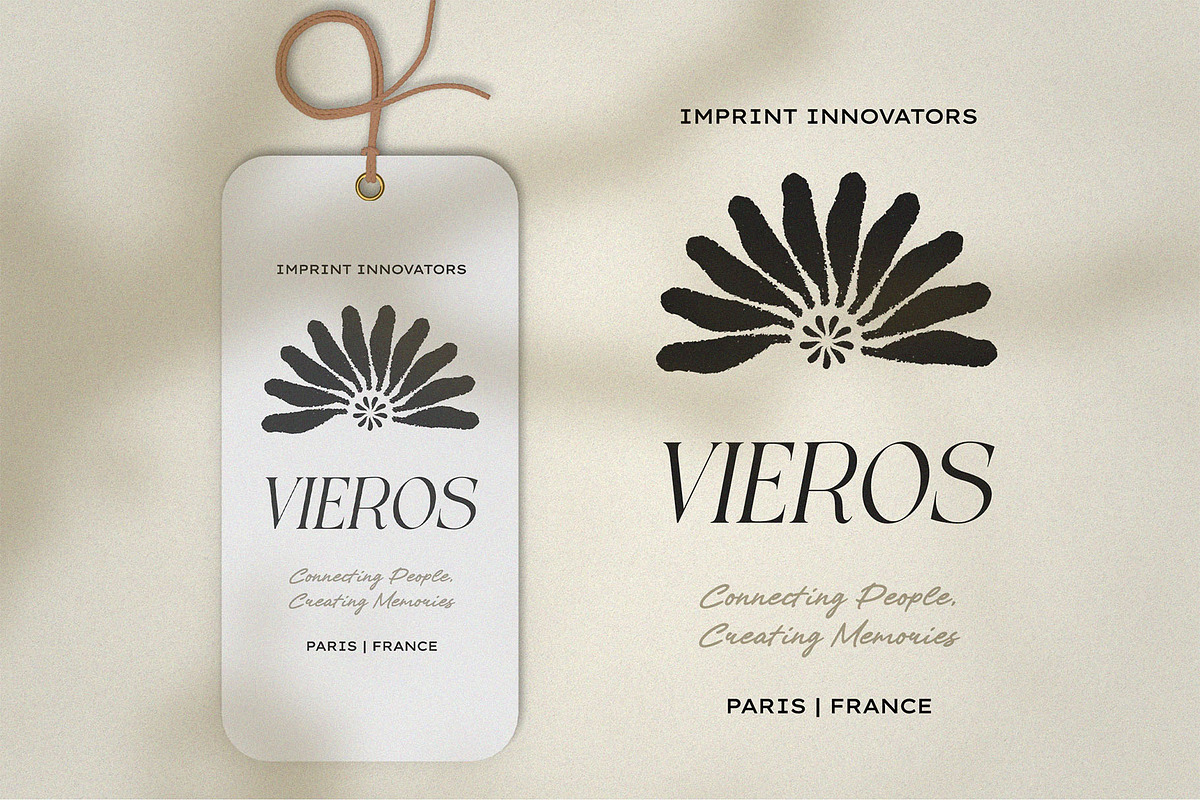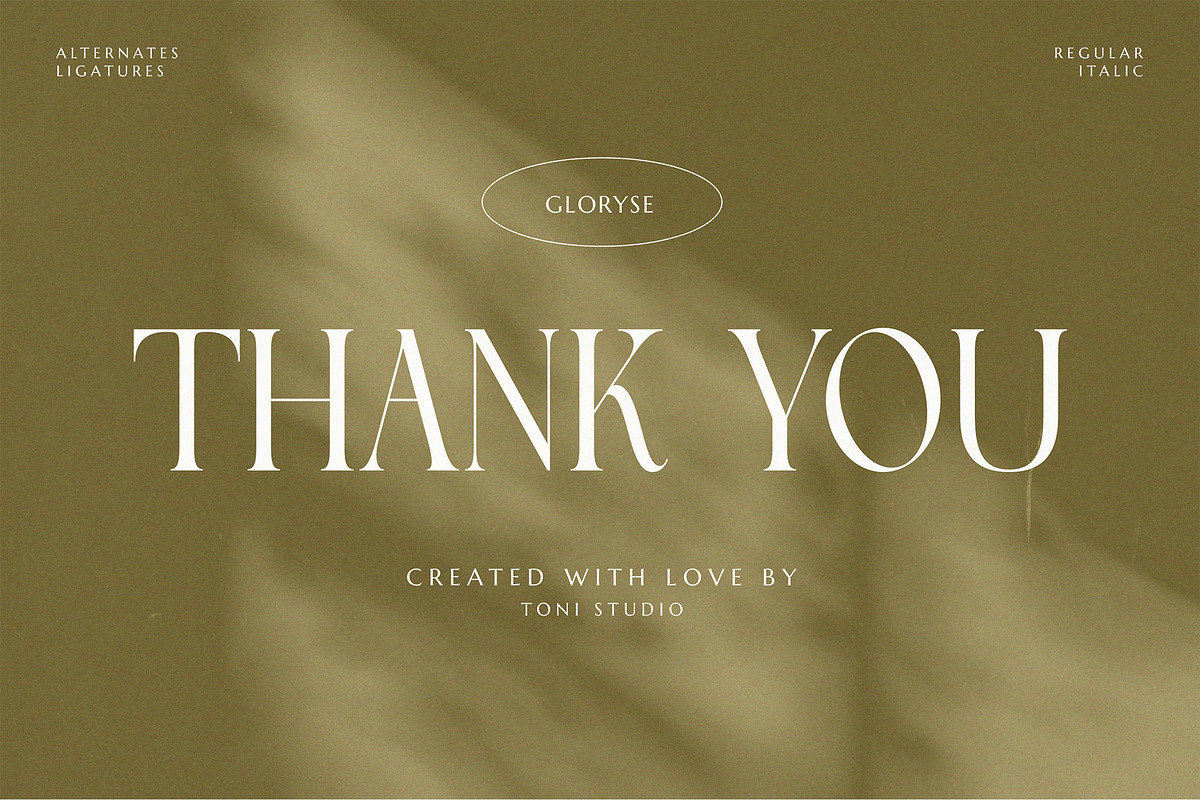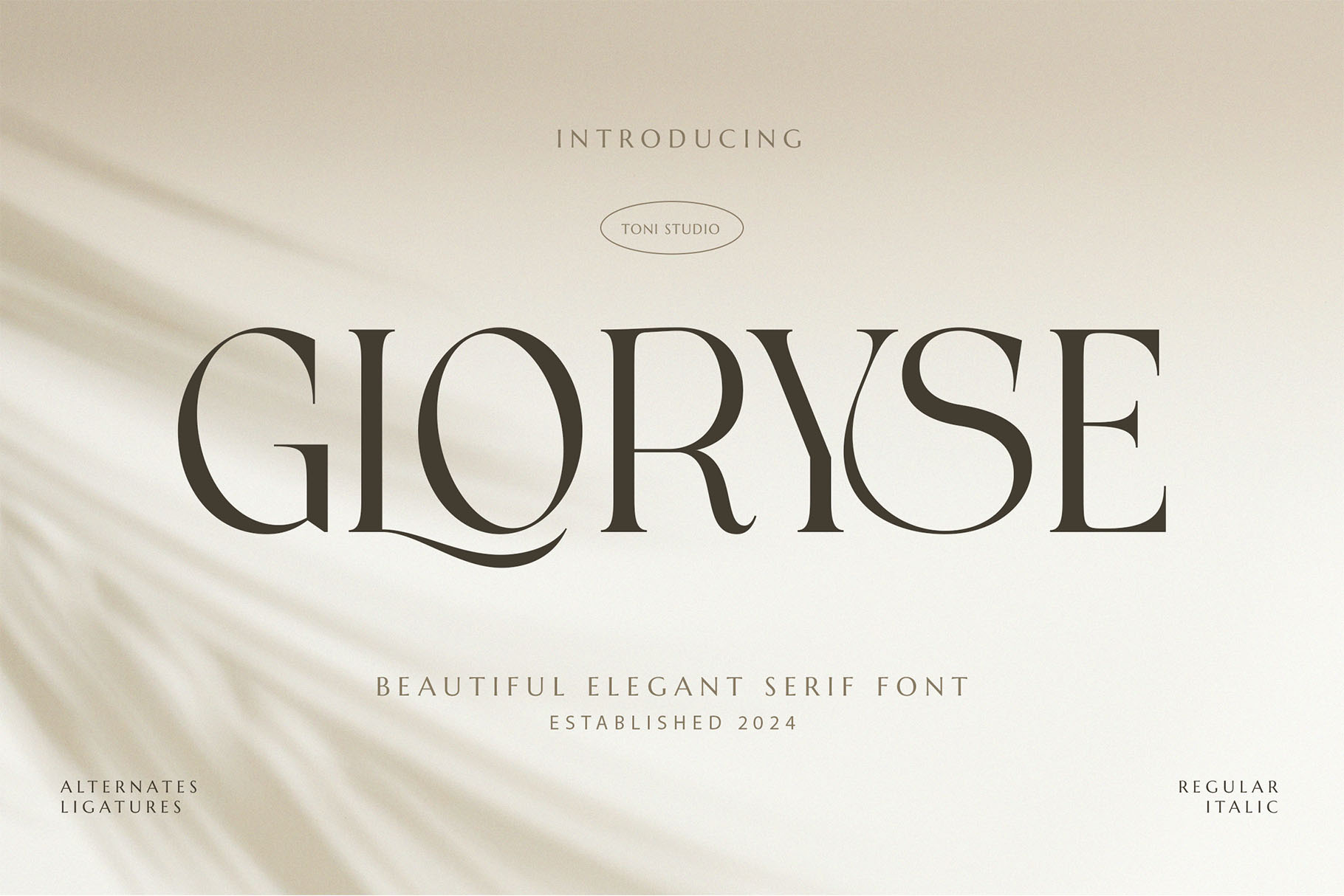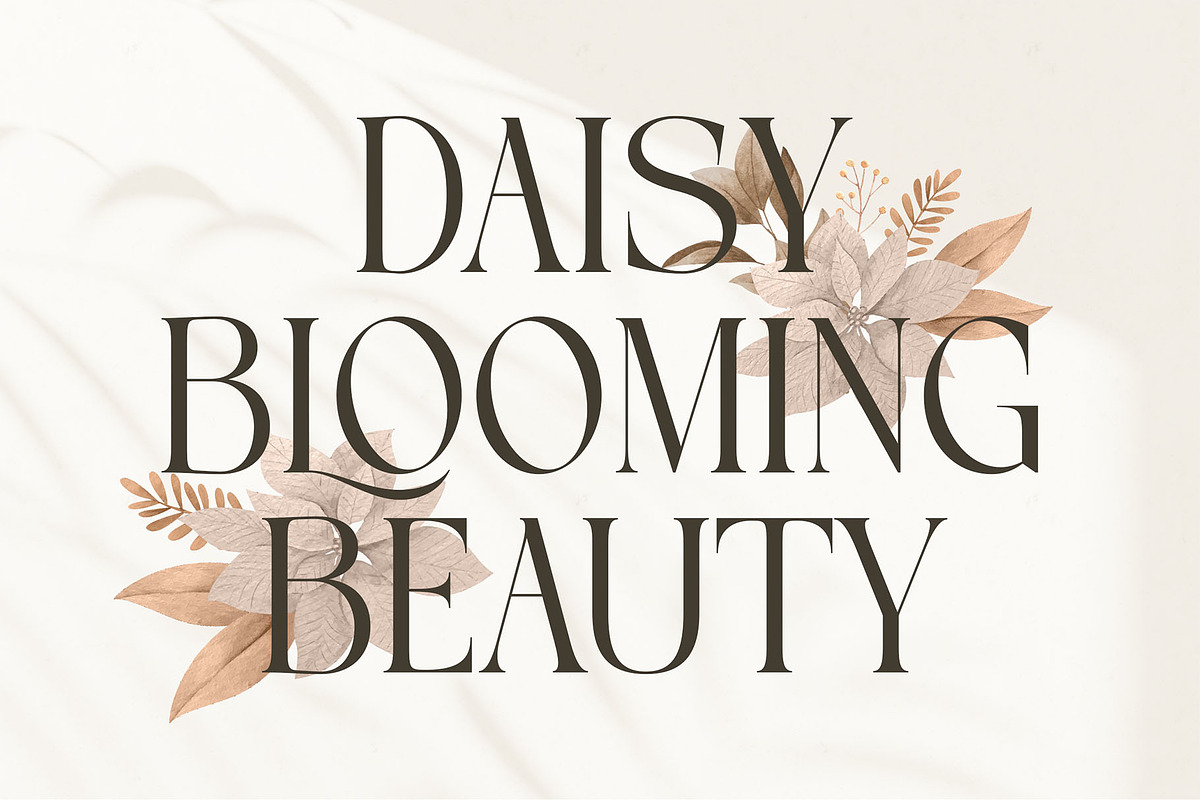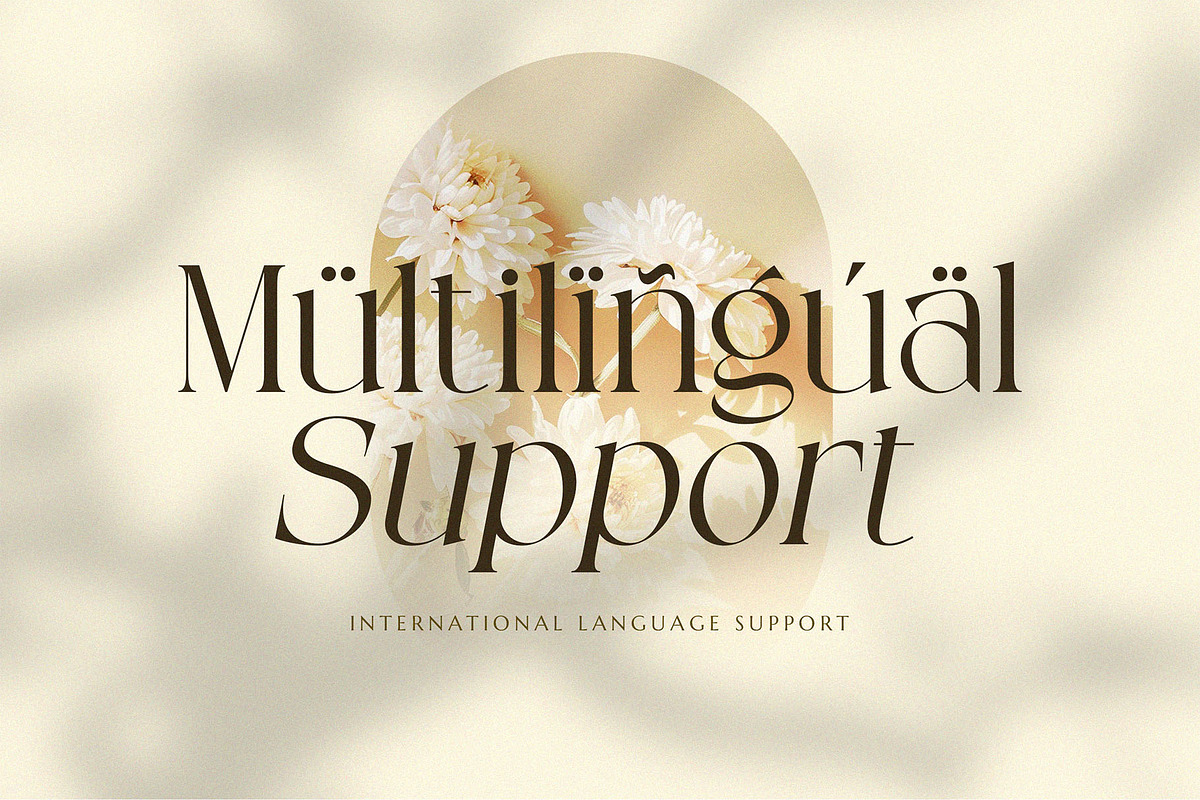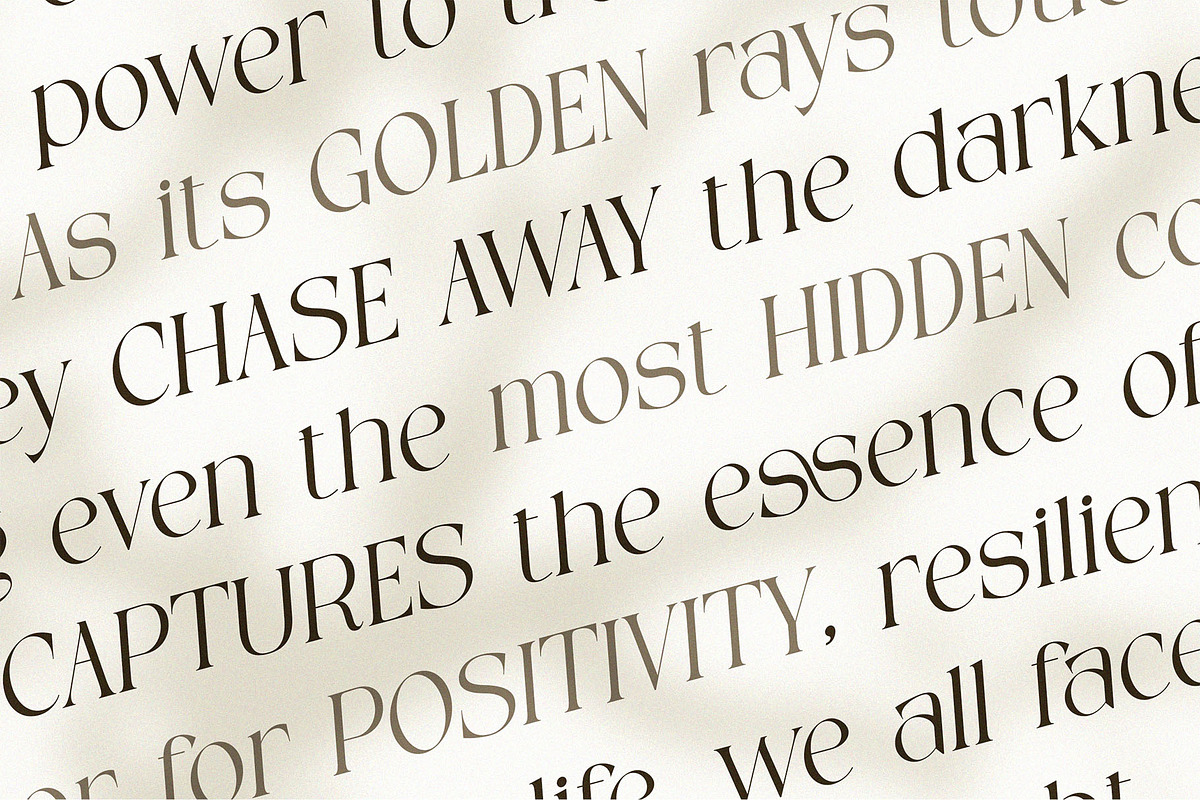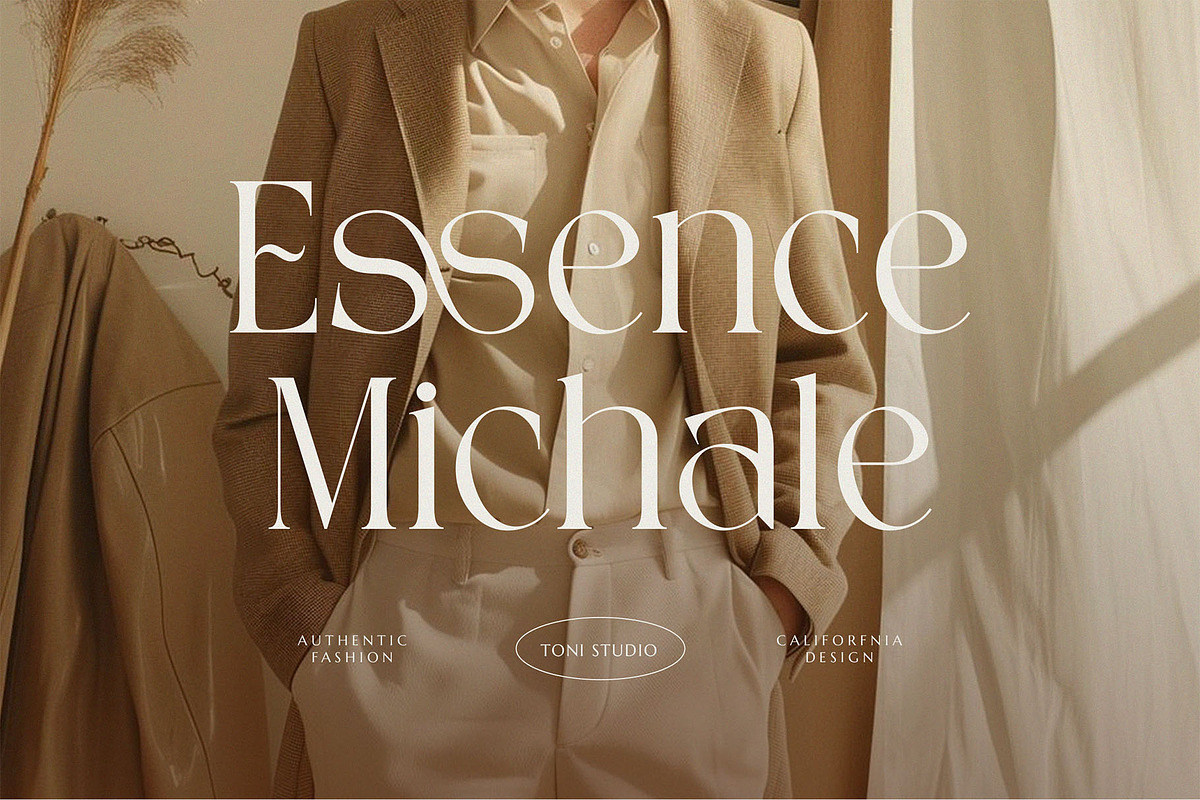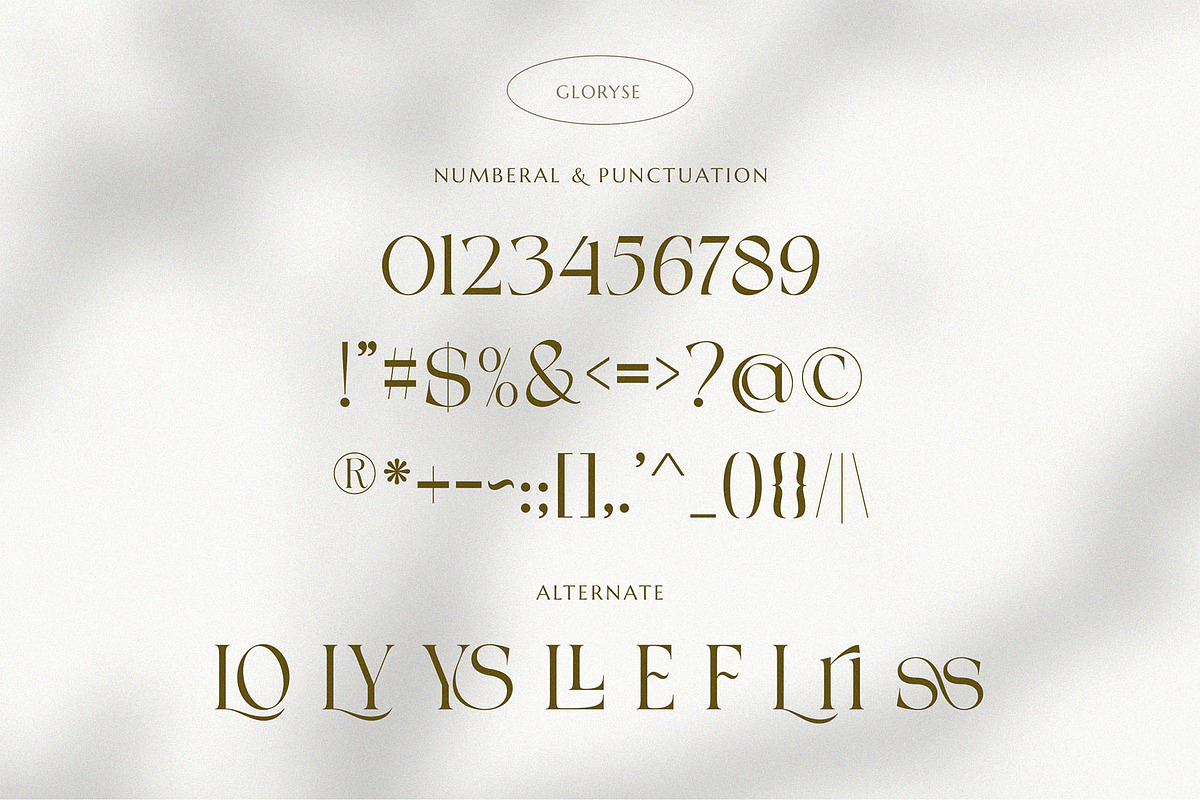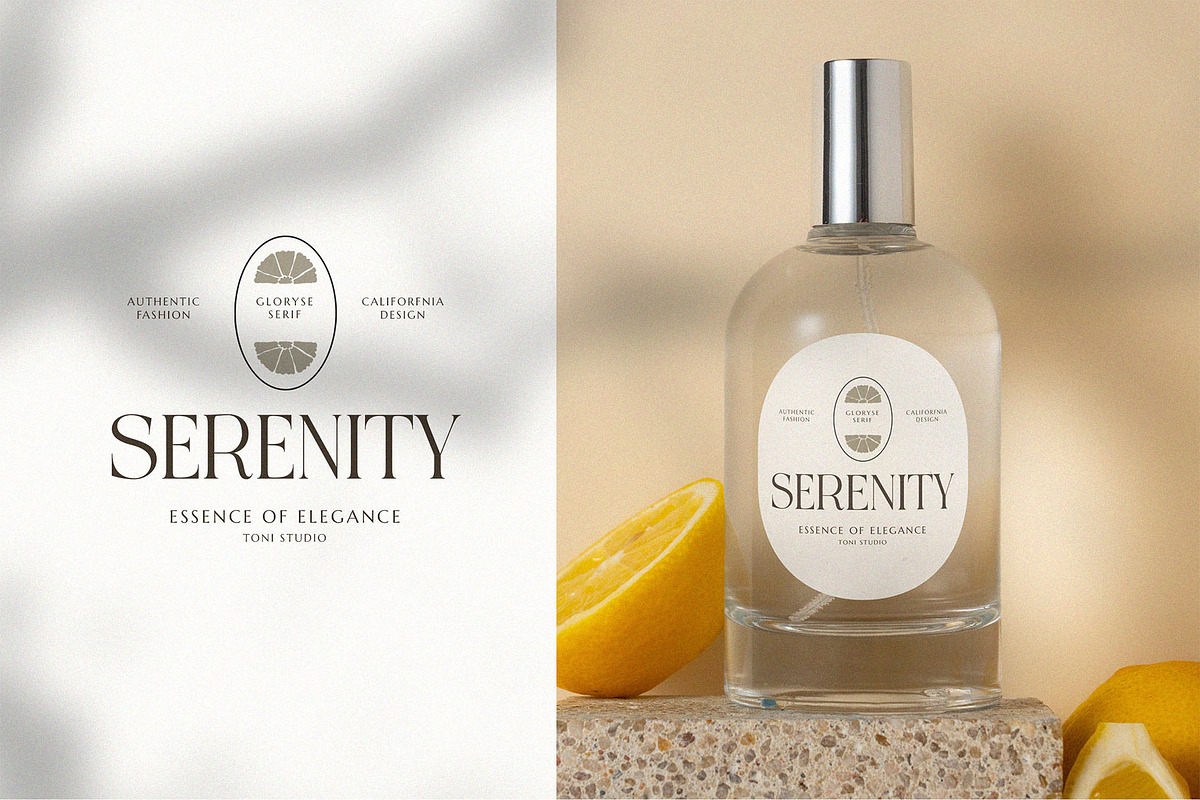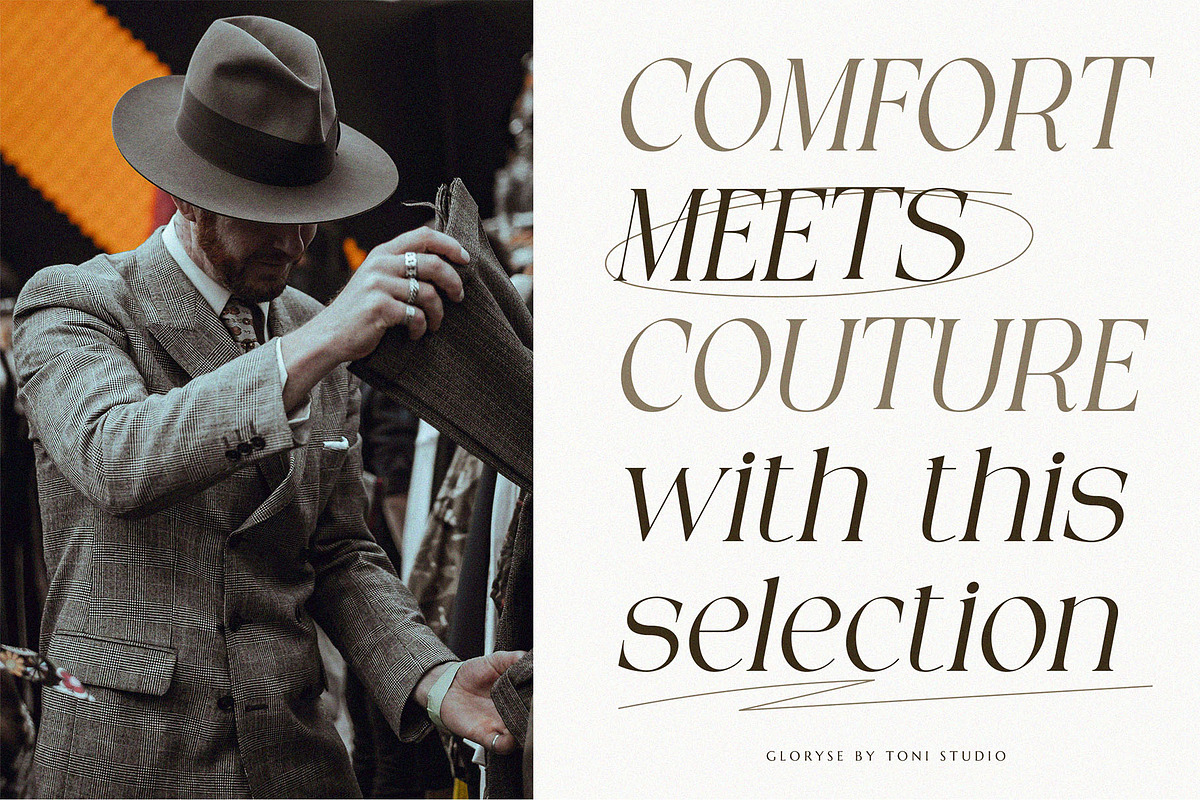
GLORISE | elegant serif font
Introducing the new GLORISE elegant serif font!!! GLORISE is a modern font that conveys a sense of elegance and class, offering beautiful typographic harmony for a variety of design projects. This font is perfect for elegant & luxury logos, classy editorial designs, women's magazines, fashion brands, cosmetic brands, fashion promotions, modern advertising designs, invitation cards, art quotes, home deco, book titles/covers, special events, tote bags. , Advertisements and more.